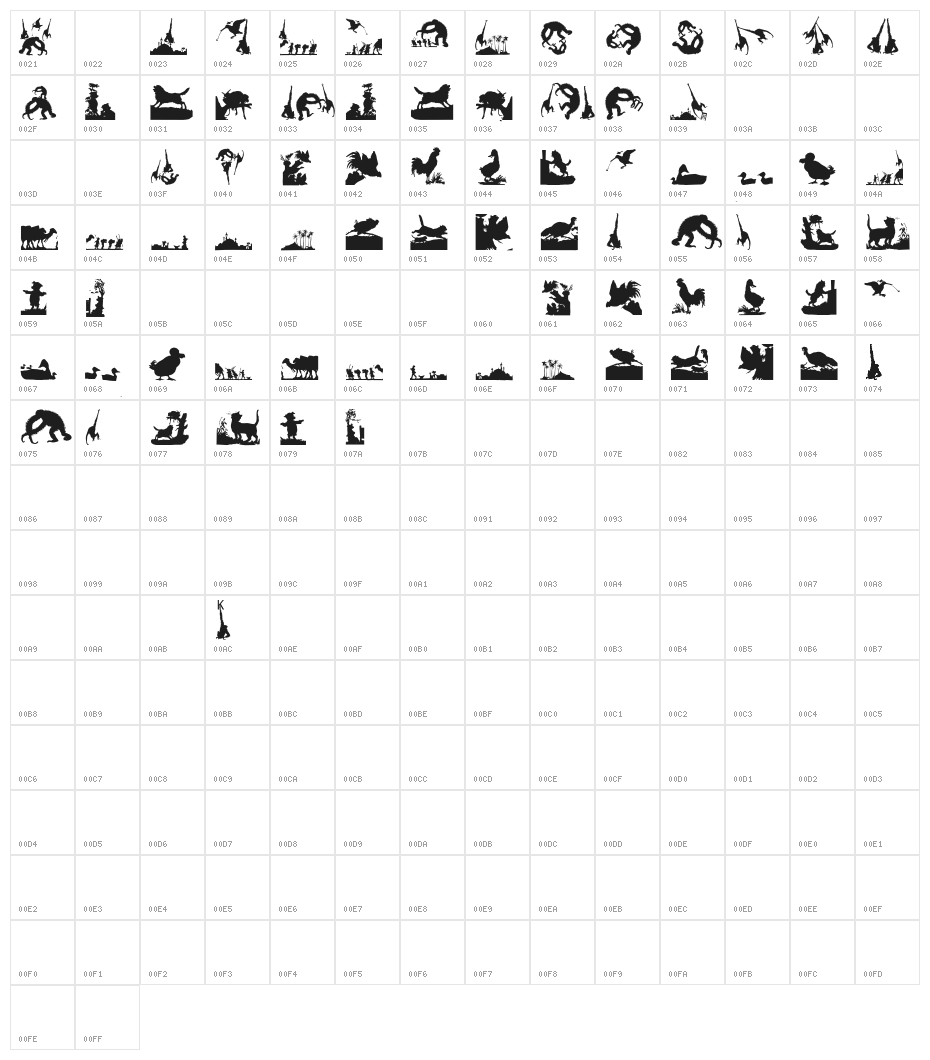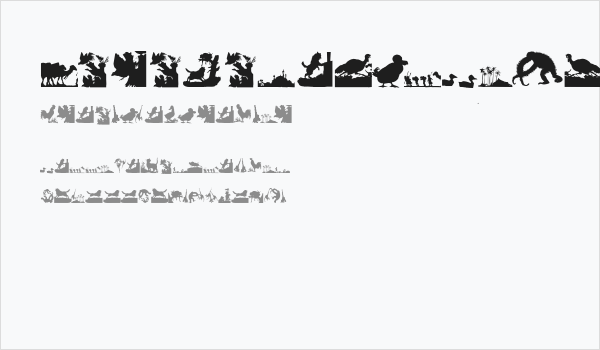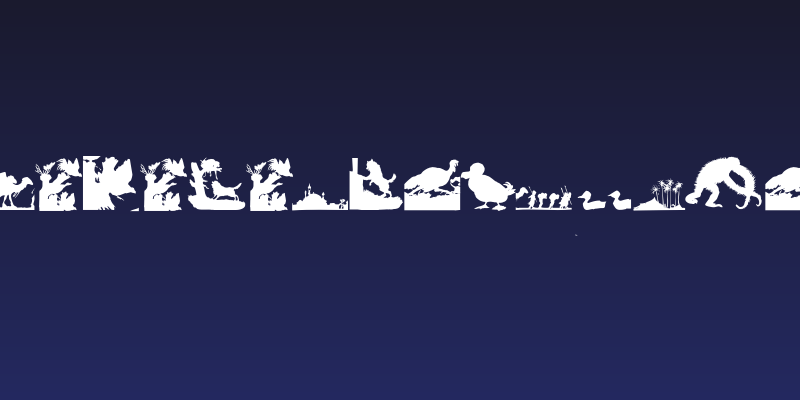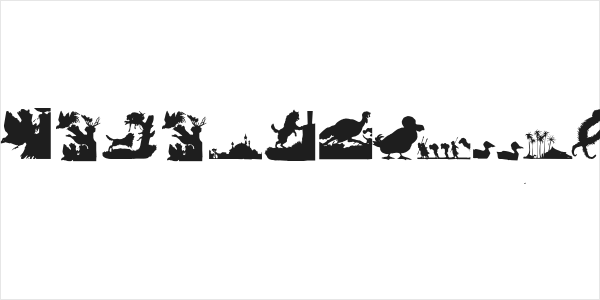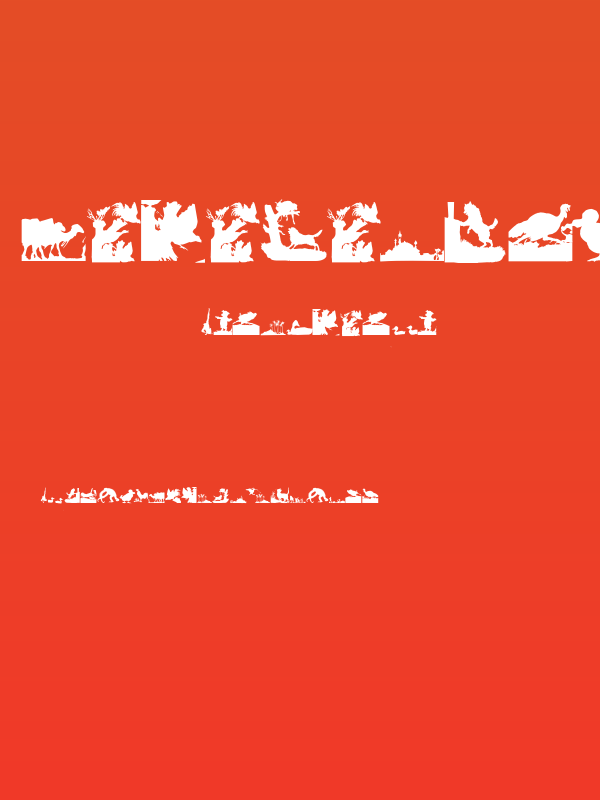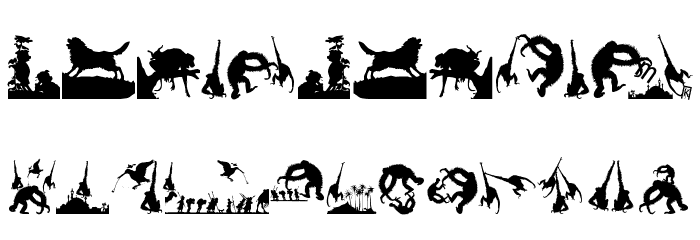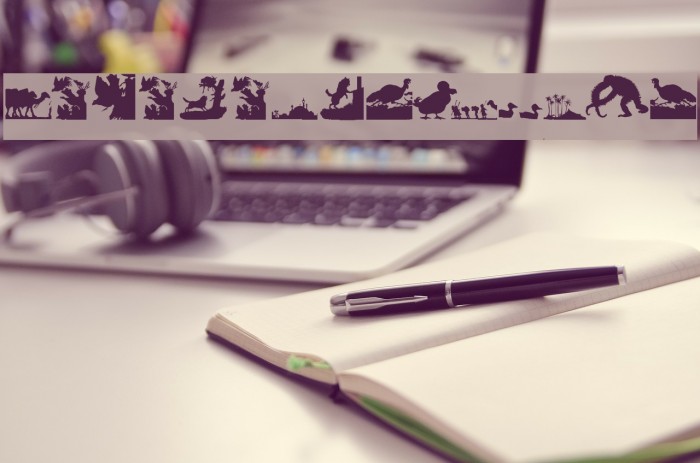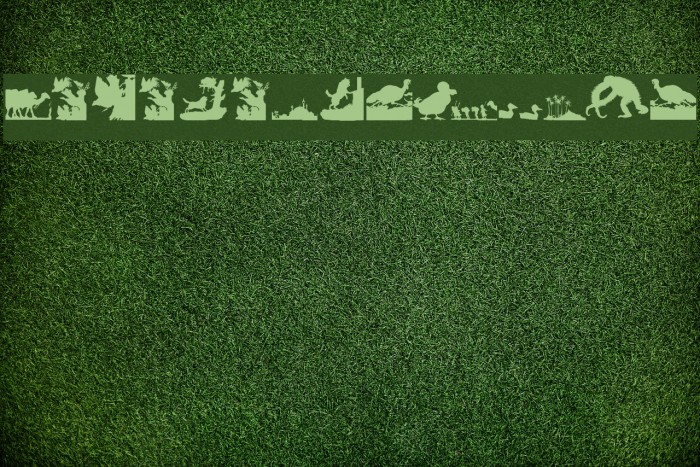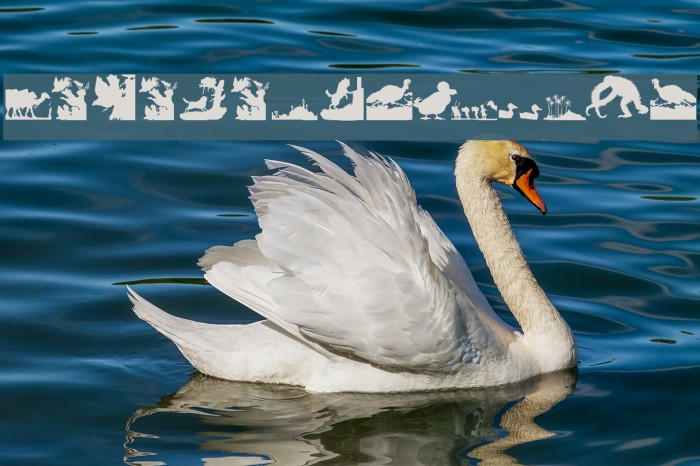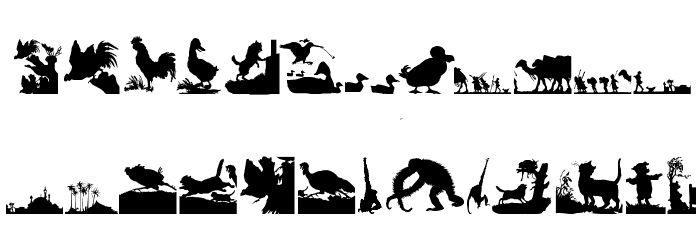
KarawaneSilhous Font
A highly decorative font composed of intricate black silhouettes depicting animals, people, and scenes, each glyph forming a unique pictorial representation rather than traditional letterforms. The characters are bold and visually dense, with each letter or symbol integrating detailed landscape or figure elements.
| Overall Style | Decorative, Artistic, Whimsical |
| Use Case | Logos, Headlines, Posters, Themed Graphics |
| Proposed Projects | Children’s books, storybook titles, themed posters, creative branding, art projects, event invitations. |